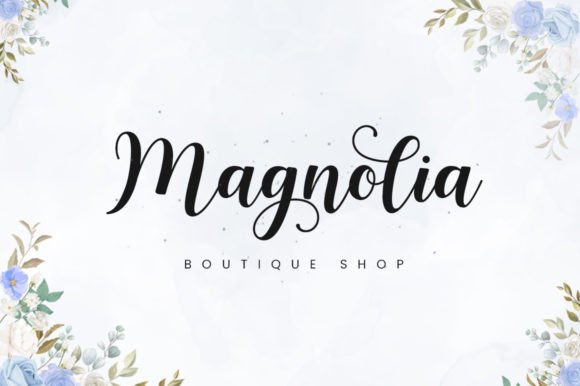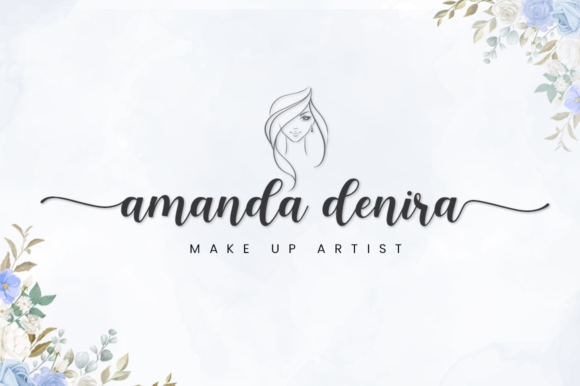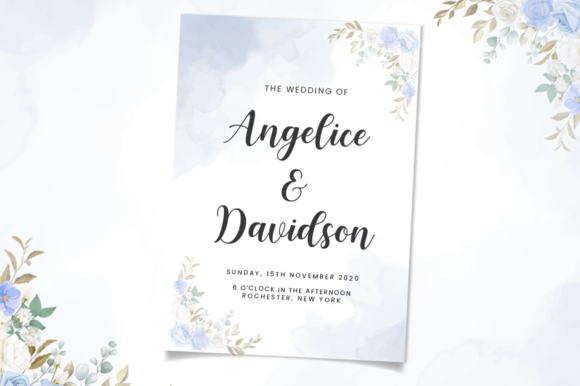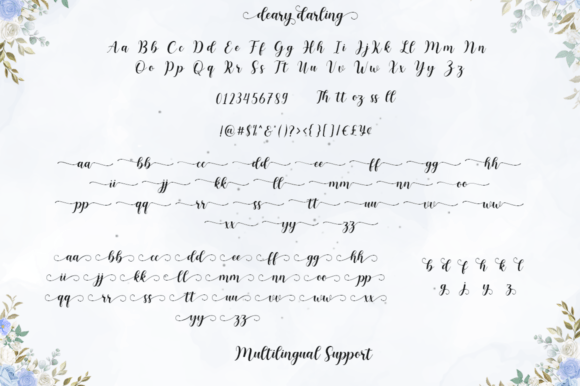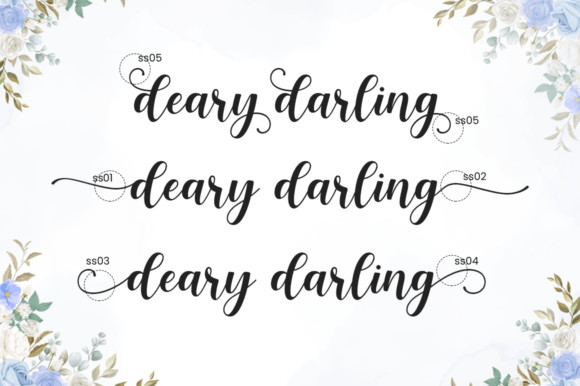
Introducing Deary Darling Font: The Ultimate Elegant and Charming Typeface
Are you a designer or crafter looking for a font that exudes elegance and charm? Look no further than the Deary Darling Font. This beautiful typeface is perfect for adding a handwritten touch to your designs, making it ideal for wedding invitations, thank you cards, quotes, greeting cards, logos, business cards, and more.
A Font that Steals the Show
Deary Darling Font is a stunning script font that feels equally charming and elegant. Its delicate and refined appearance makes it perfect for designs that require a touch of sophistication. Whether you’re creating wedding stationery, branding materials, or social media graphics, this font is sure to impress.
Perfect for Wedding and Event Design
Wedding designers and event planners, rejoice! Deary Darling Font is a match made in heaven for your designs. Its elegant and refined appearance makes it perfect for:
- Wedding invitations and save-the-date cards
- Thank you cards and RSVP cards
- Wedding menus and place cards
- Event branding and signage
More than Just a Font
Deary Darling Font is more than just a beautiful typeface. It’s also PUA encoded, which means you can access all of the glyphs and swashes with ease. This feature makes it easy to customize your designs and add a personal touch.
PUA (Private Use Area) encoding is a feature that allows designers to access additional characters and glyphs within a font. In the case of Deary Darling Font, PUA encoding means you can easily access:
- Swashes and flourishes
- Alternate characters and ligatures
- Ornaments and decorations
Why Choose Deary Darling Font?
So, why choose Deary Darling Font for your designs? Here are just a few reasons:
- Elegant and charming appearance: Deary Darling Font is perfect for designs that require a touch of sophistication.
- PUA encoded: Easily access additional characters and glyphs to customize your designs.
- Versatile: Use Deary Darling Font for a wide range of designs, from wedding stationery to branding materials.
Tips for Using Deary Darling Font
Here are a few tips for getting the most out of Deary Darling Font:
- Pair with bold fonts: Pair Deary Darling Font with bold fonts for a striking contrast.
- Use for headlines and titles: Deary Darling Font is perfect for headlines and titles, adding a touch of elegance to your designs.
- Experiment with swashes: Use the PUA encoded swashes and flourishes to add a personal touch to your designs.
In conclusion, Deary Darling Font is a beautiful and elegant typeface that’s perfect for designers and crafters looking to add a handwritten touch to their designs. With its PUA encoding and versatile design, it’s ideal for a wide range of projects, from wedding stationery to branding materials. So why wait? Download Deary Darling Font today and start creating stunning designs that will leave a lasting impression.